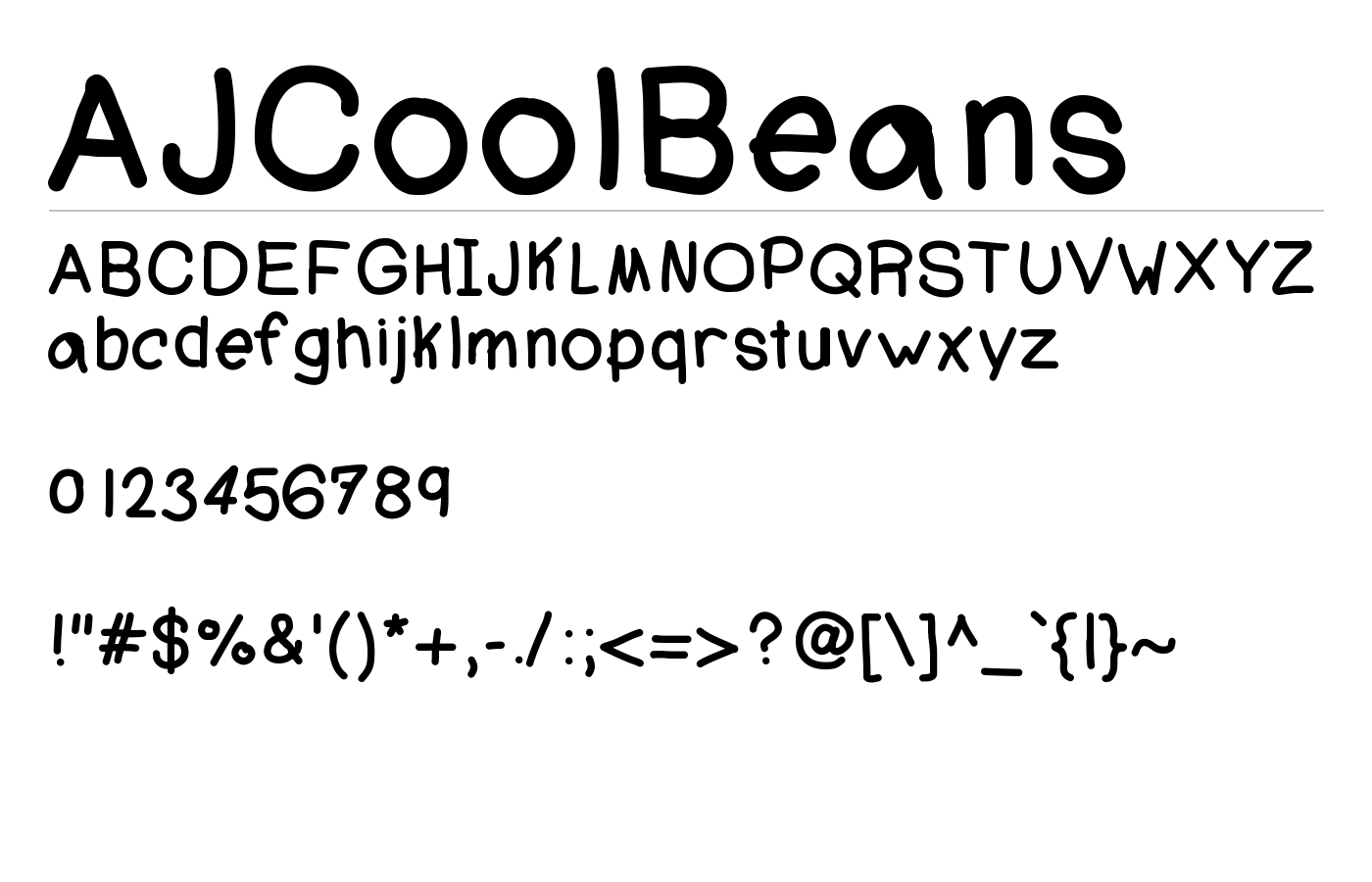
AJCoolBeans is a playful, hand-drawn sans serif font with a casual, friendly vibe, featuring rounded letterforms and uneven stroke widths that give it an approachable, informal feel. Its legible, somewhat quirky style makes it ideal for children’s materials, casual branding, or fun poster designs where a relaxed and personal touch is desired. This font shines in creative, lighthearted contexts that benefit from a warm, handmade appearance.
AJCoolBeans Font
About AJCoolBeans Font